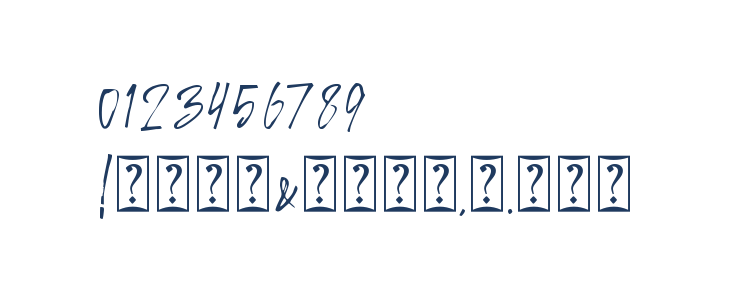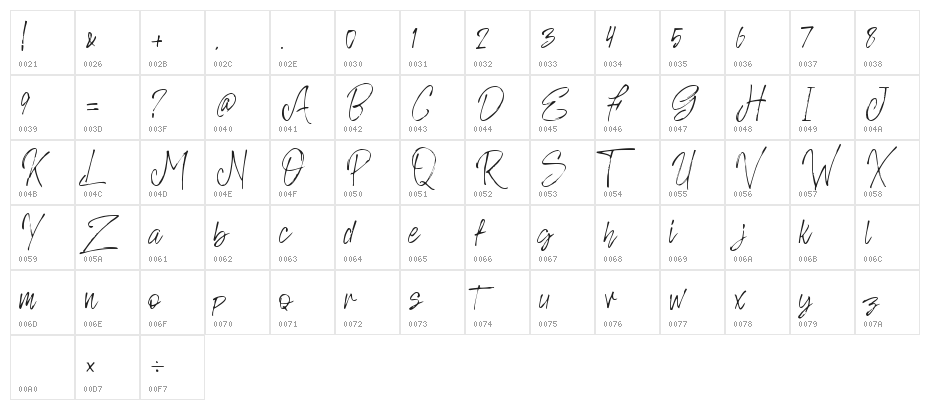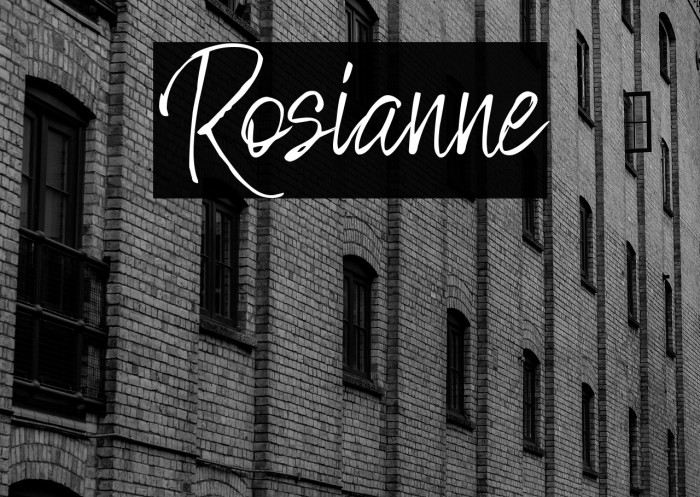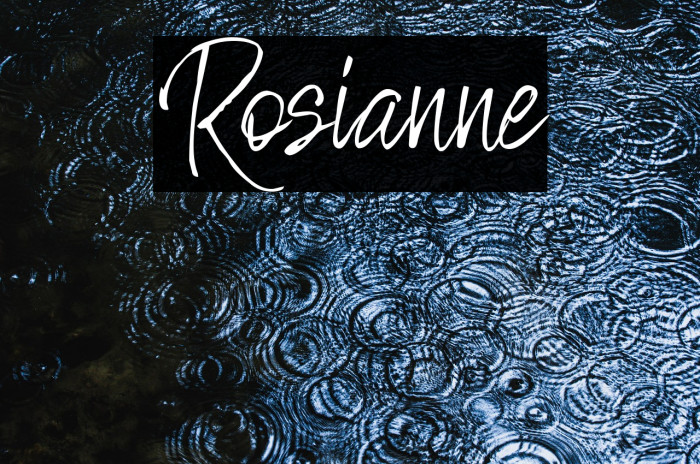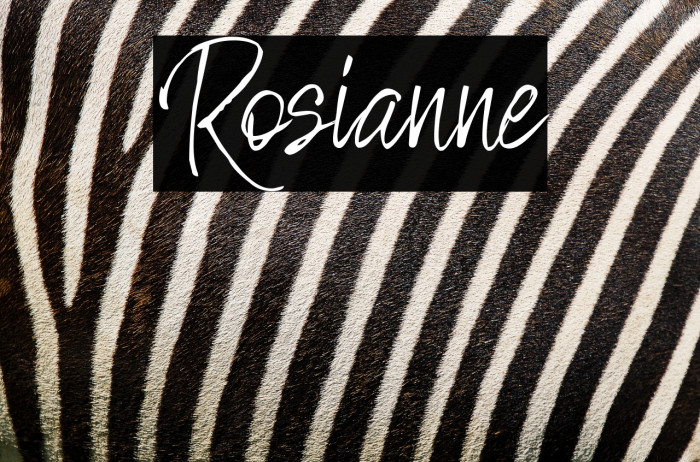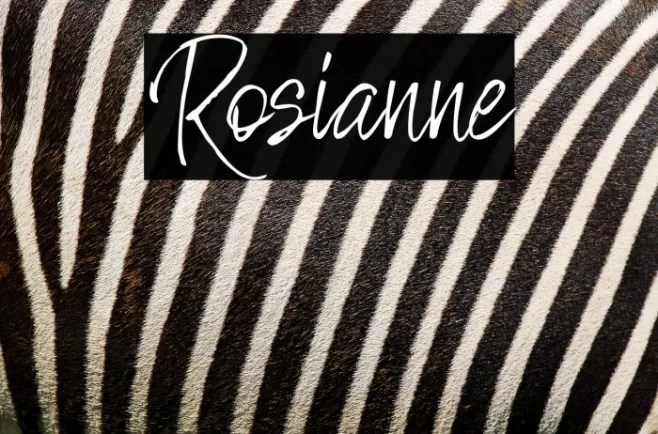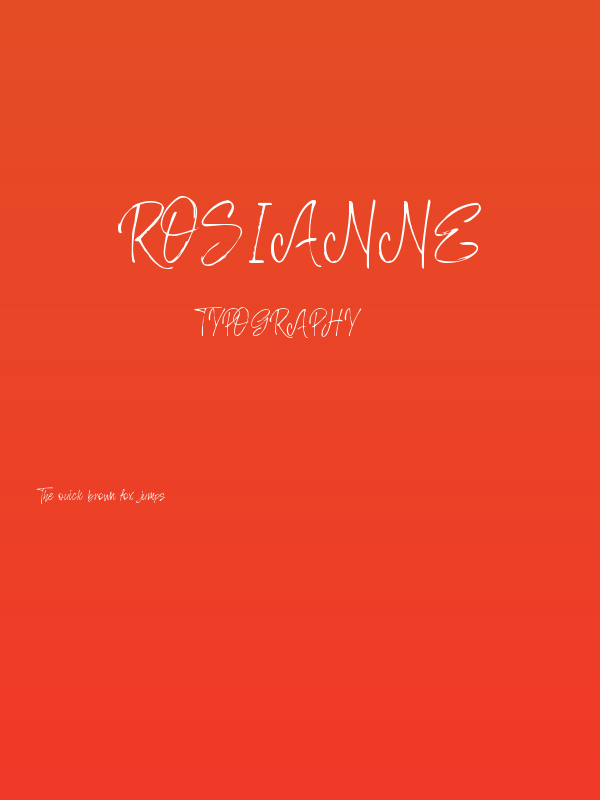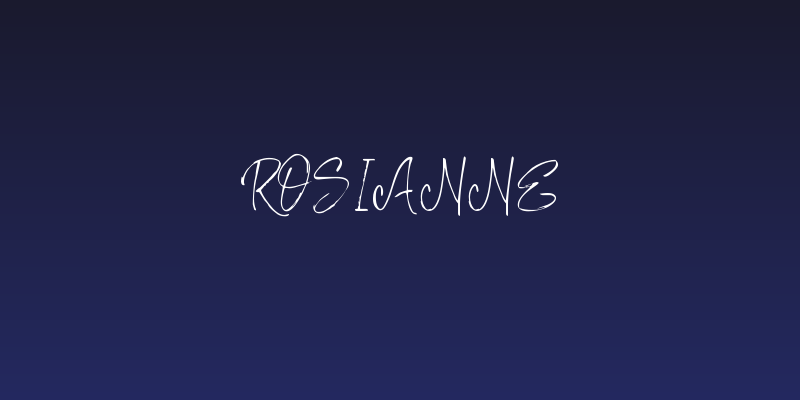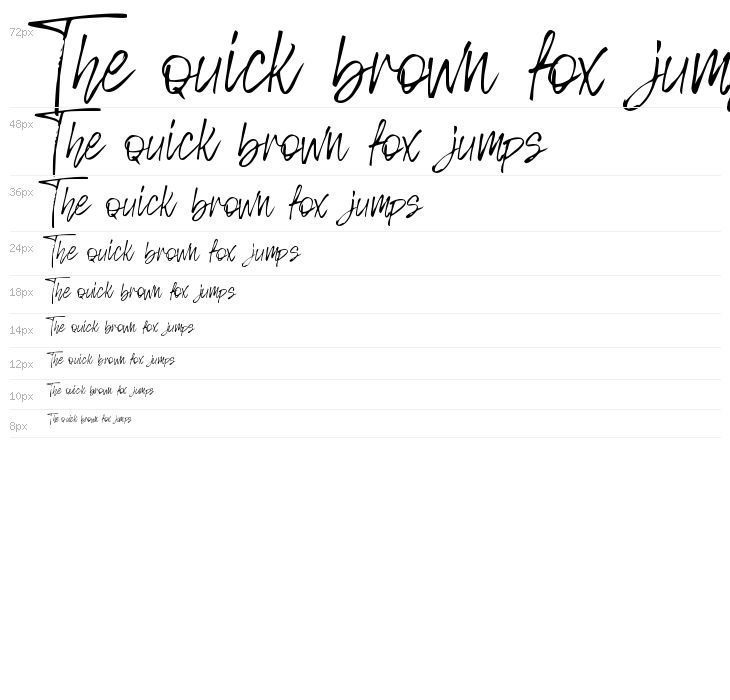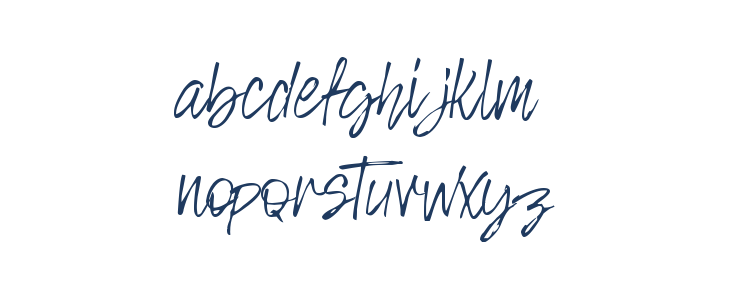
Rosianne Font
Rosianne Description
This font features an elegant, handwritten style with a flowing, cursive appearance. The uppercase letters are tall and slender, with graceful curves and loops that give them a sophisticated look. The lowercase letters maintain a consistent style, with smooth connections between characters, enhancing the script's fluidity. The numbers are designed to match the overall aesthetic, with a slight slant and rounded edges. Special characters are integrated seamlessly, maintaining the font's cohesive appearance. This font exudes a sense of elegance and creativity, making it suitable for projects that require a personal touch.
| Proposed Projects | Ideal for wedding invitations, greeting cards, personal branding, and artistic projects. |